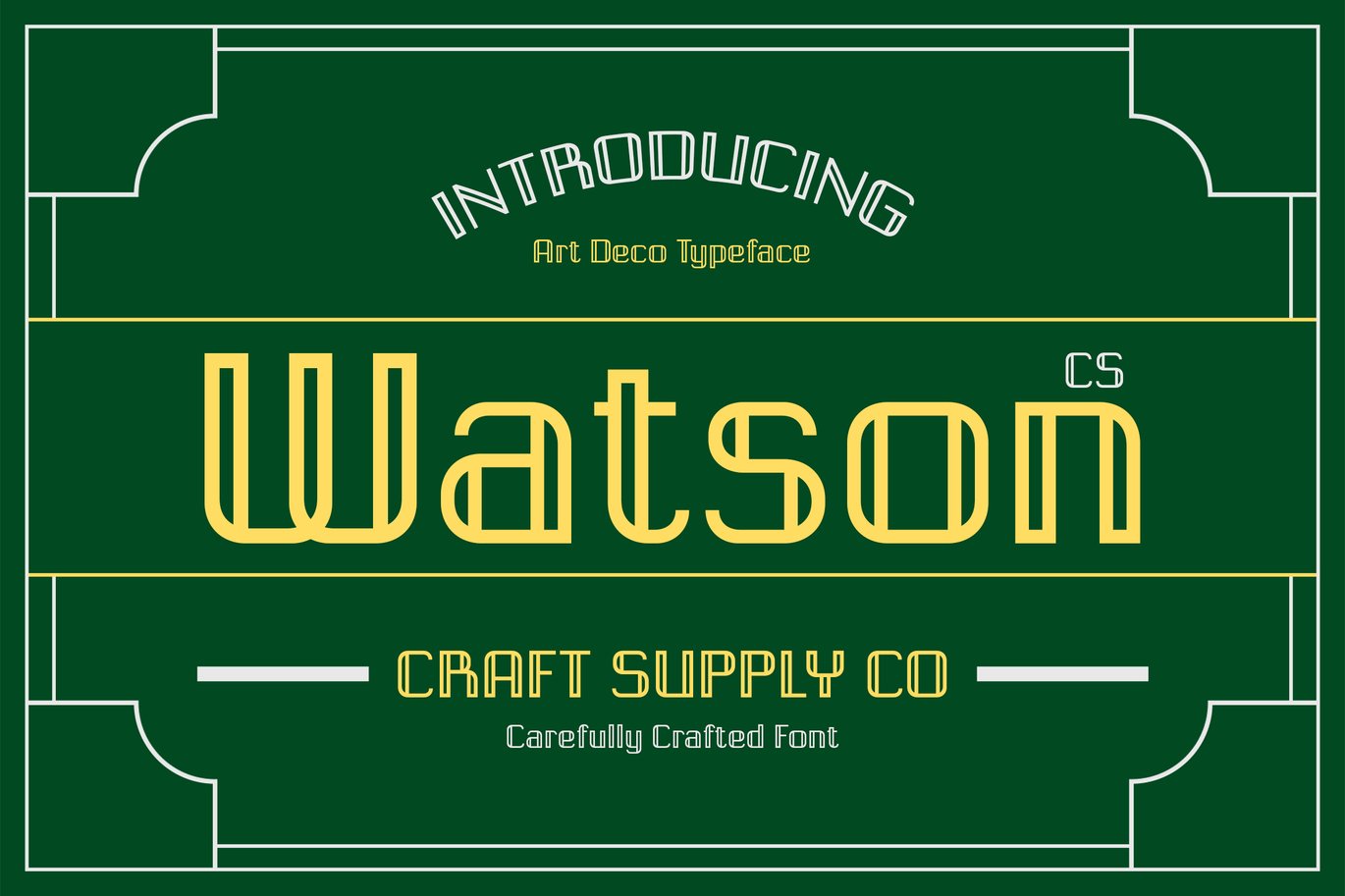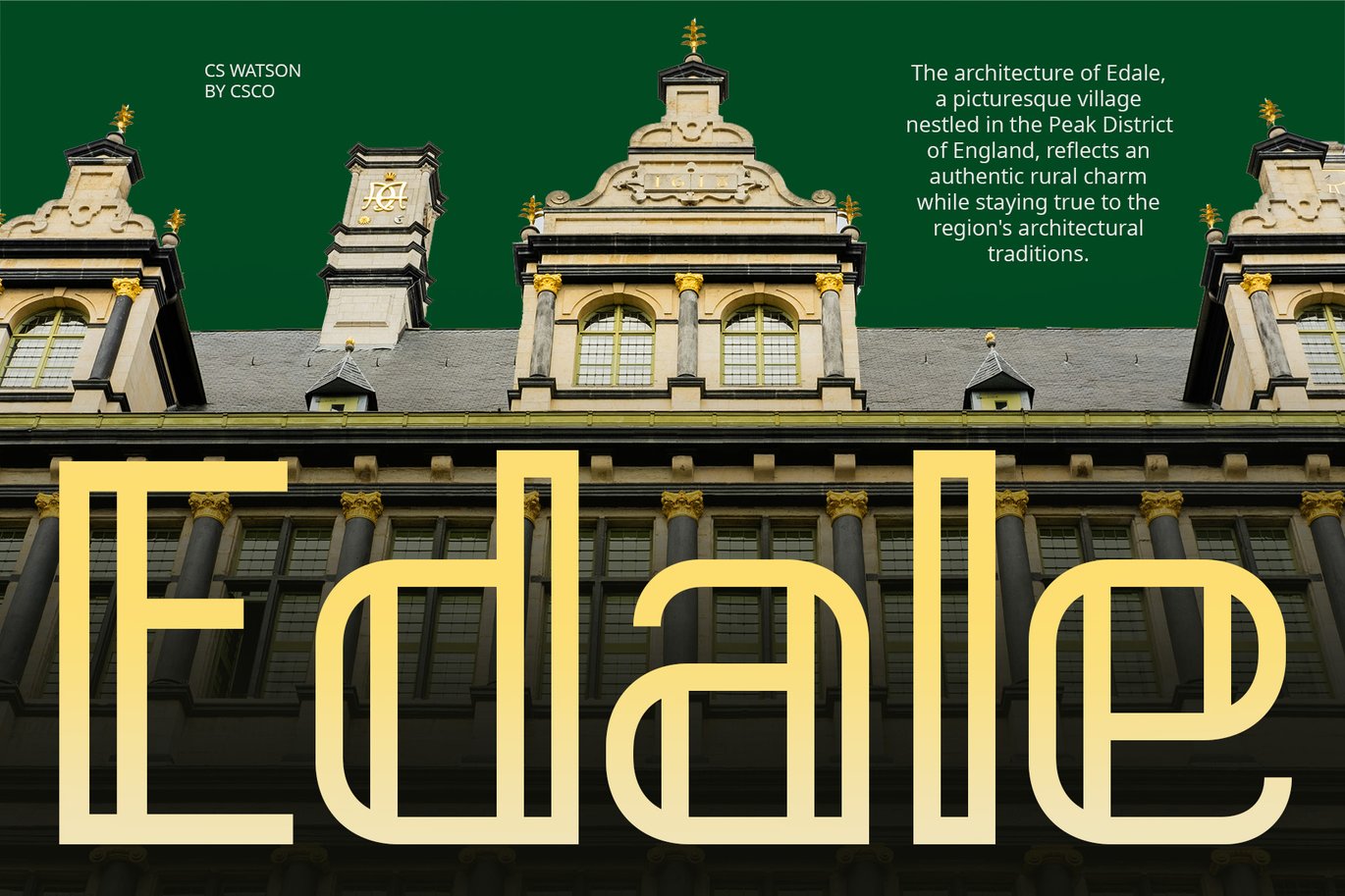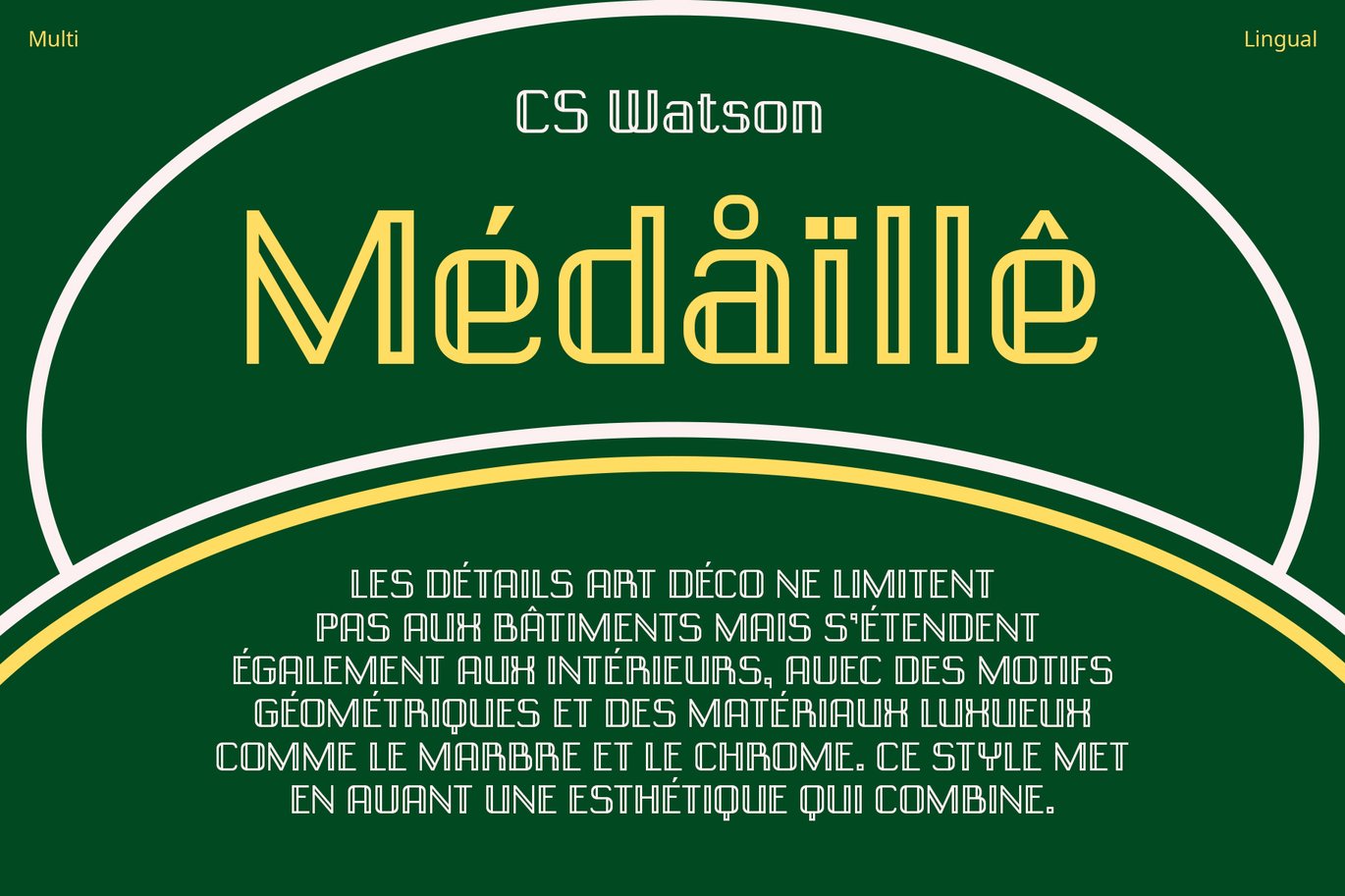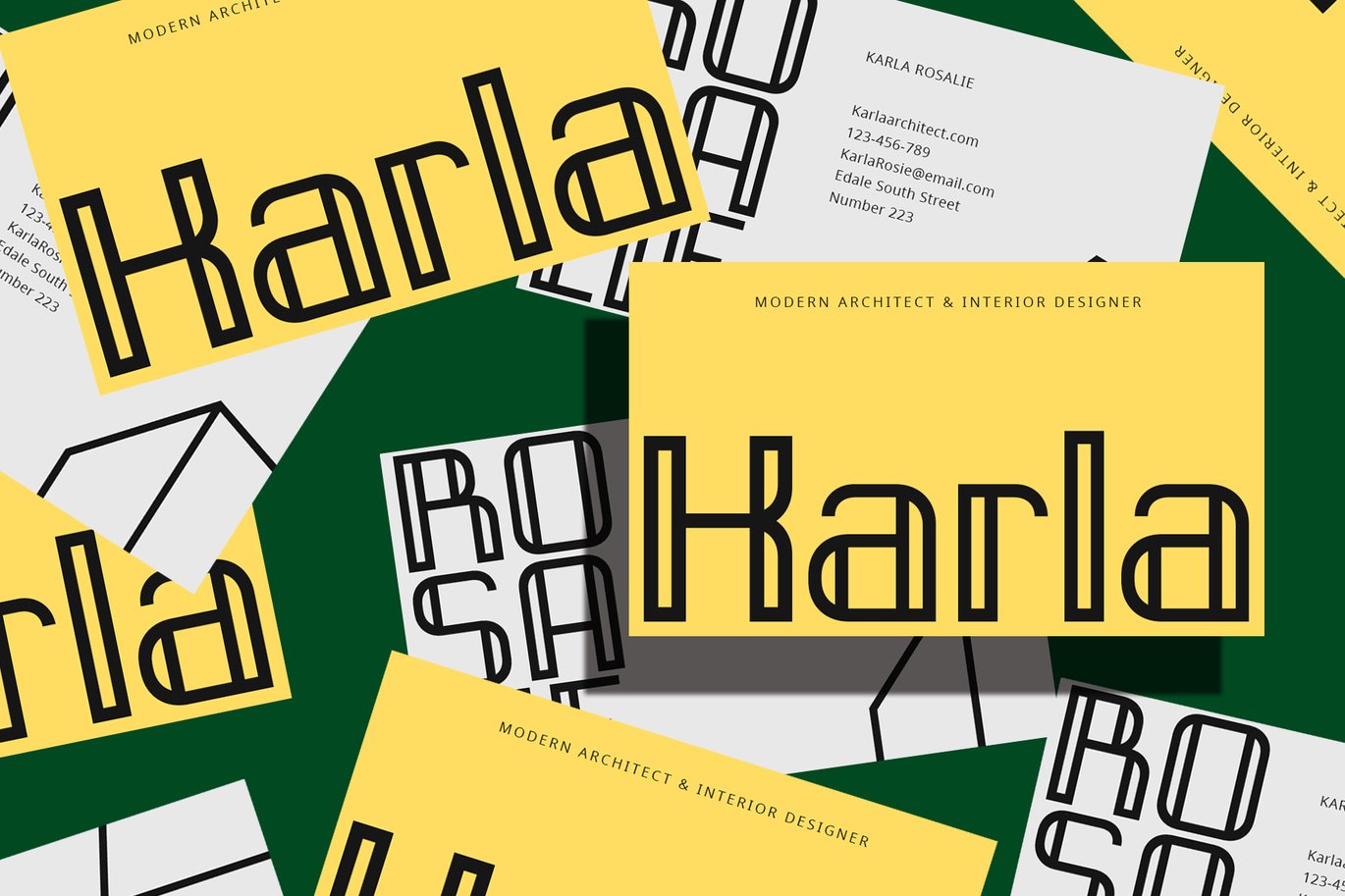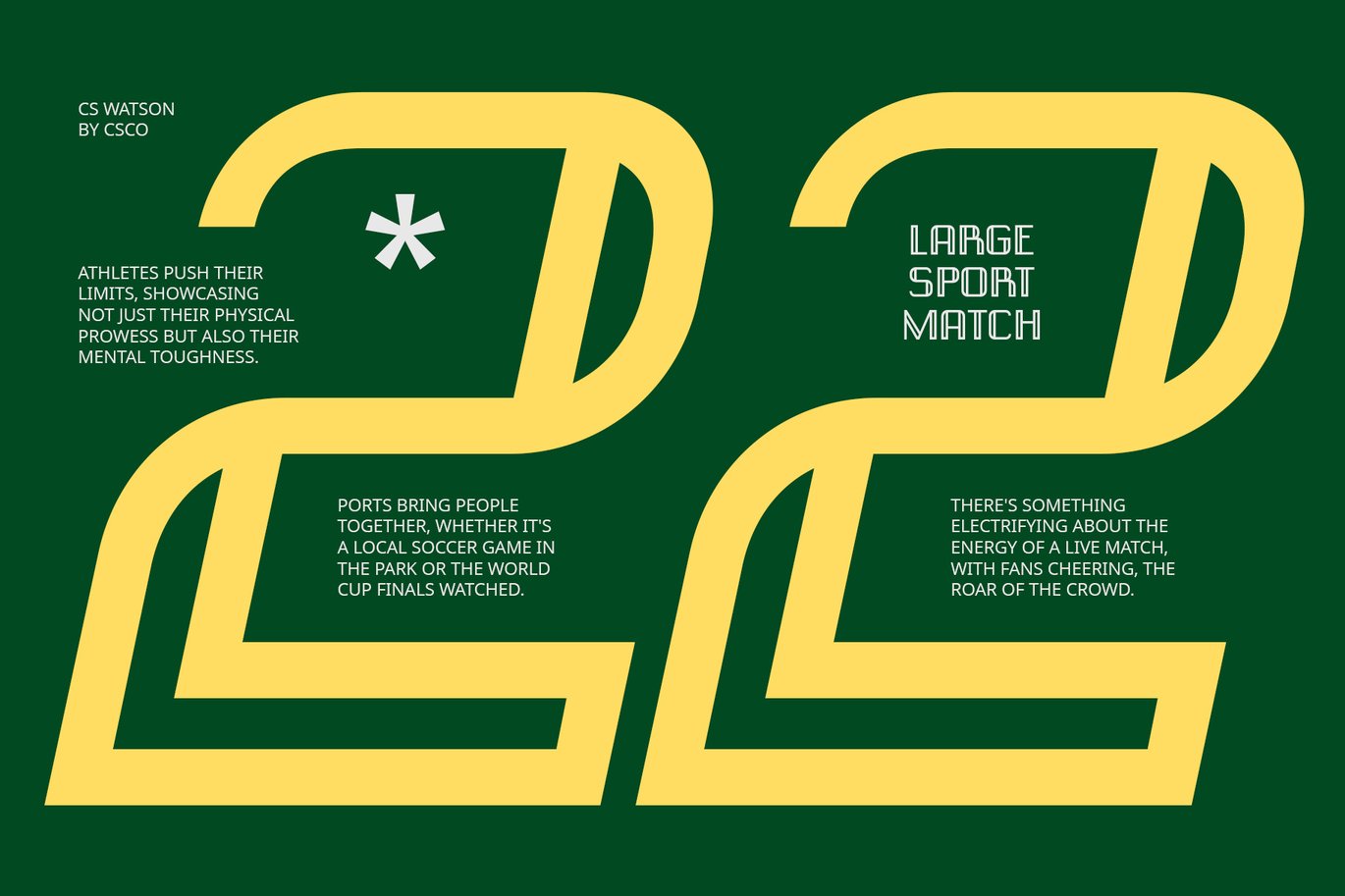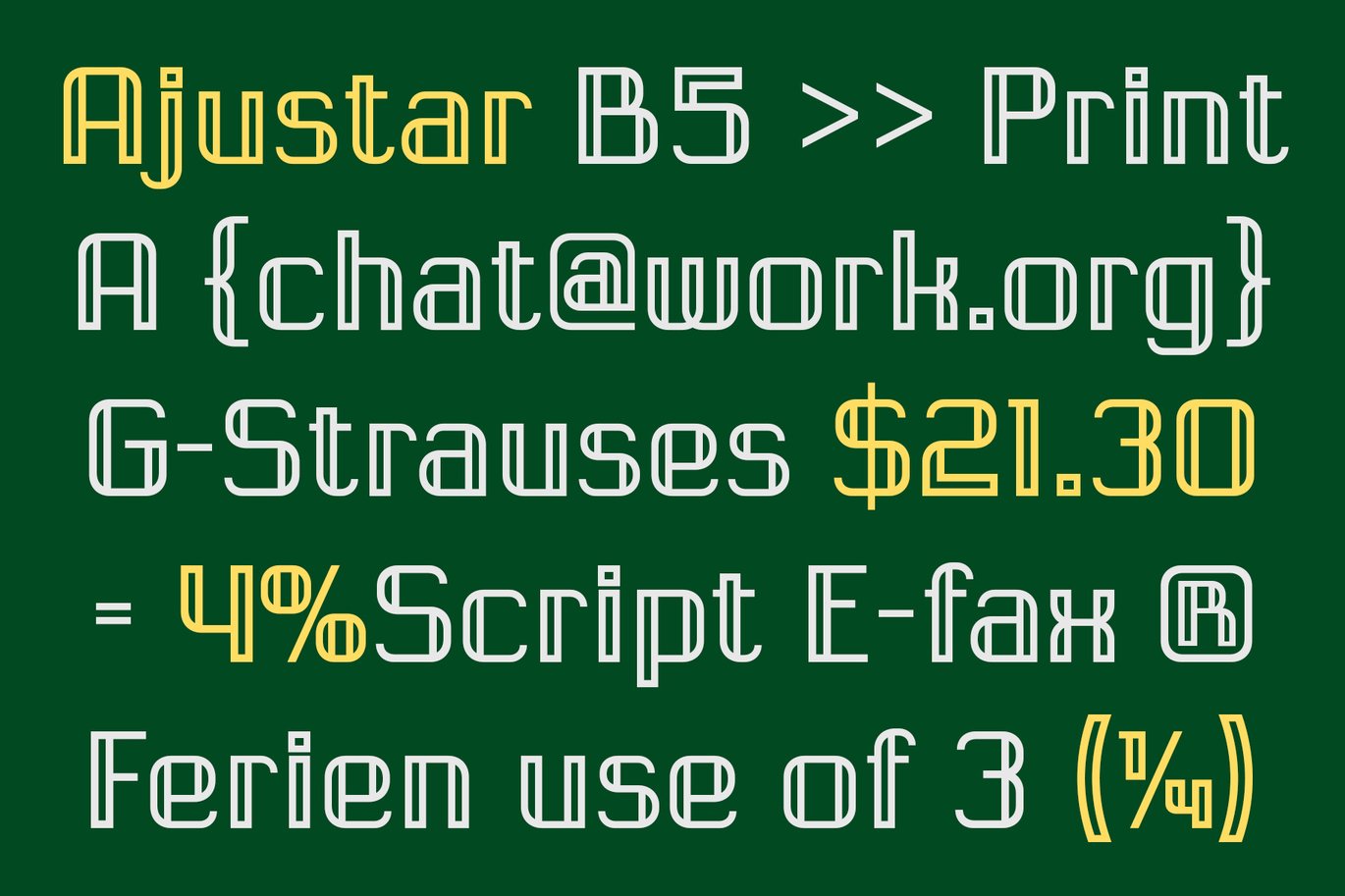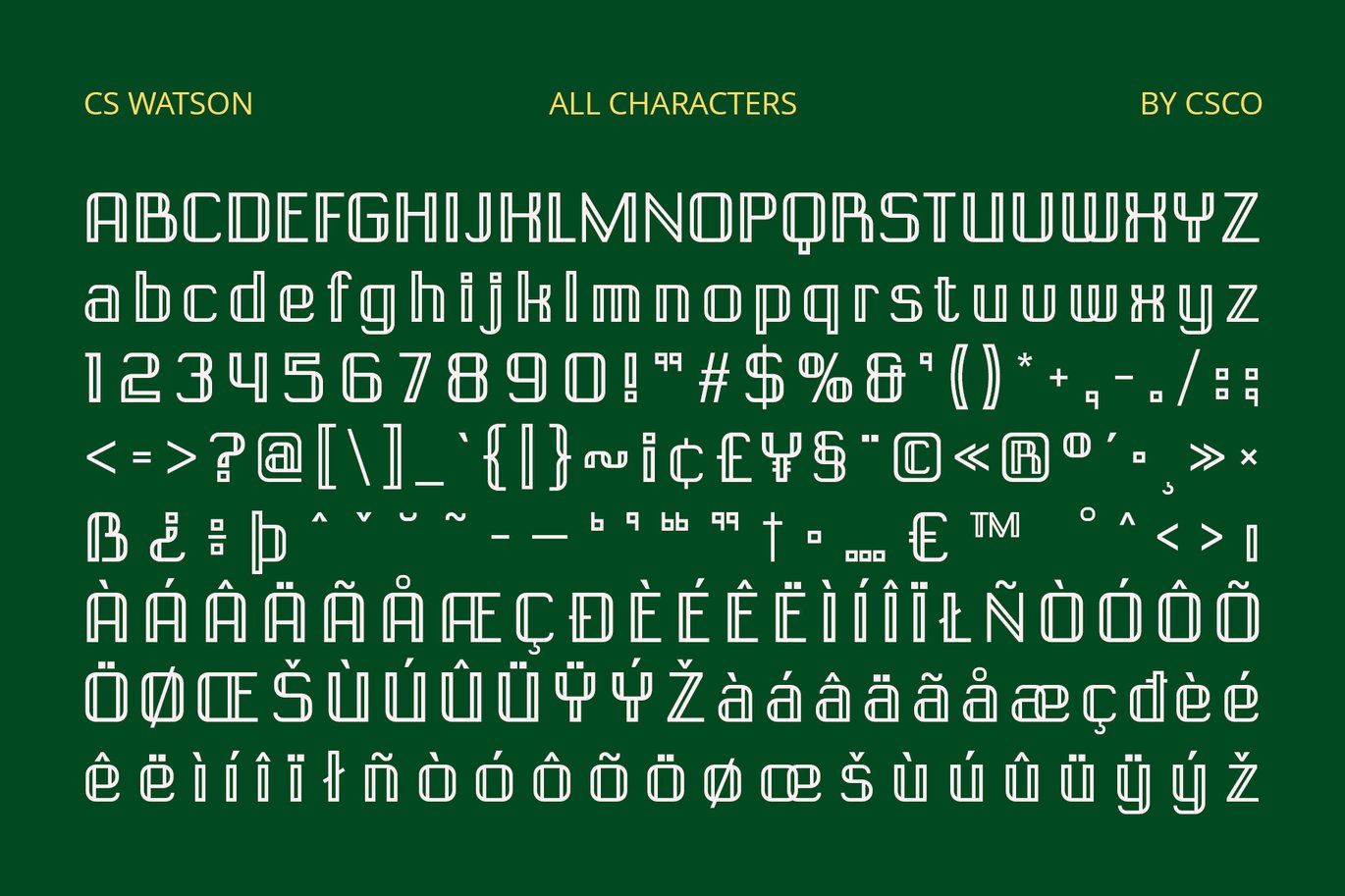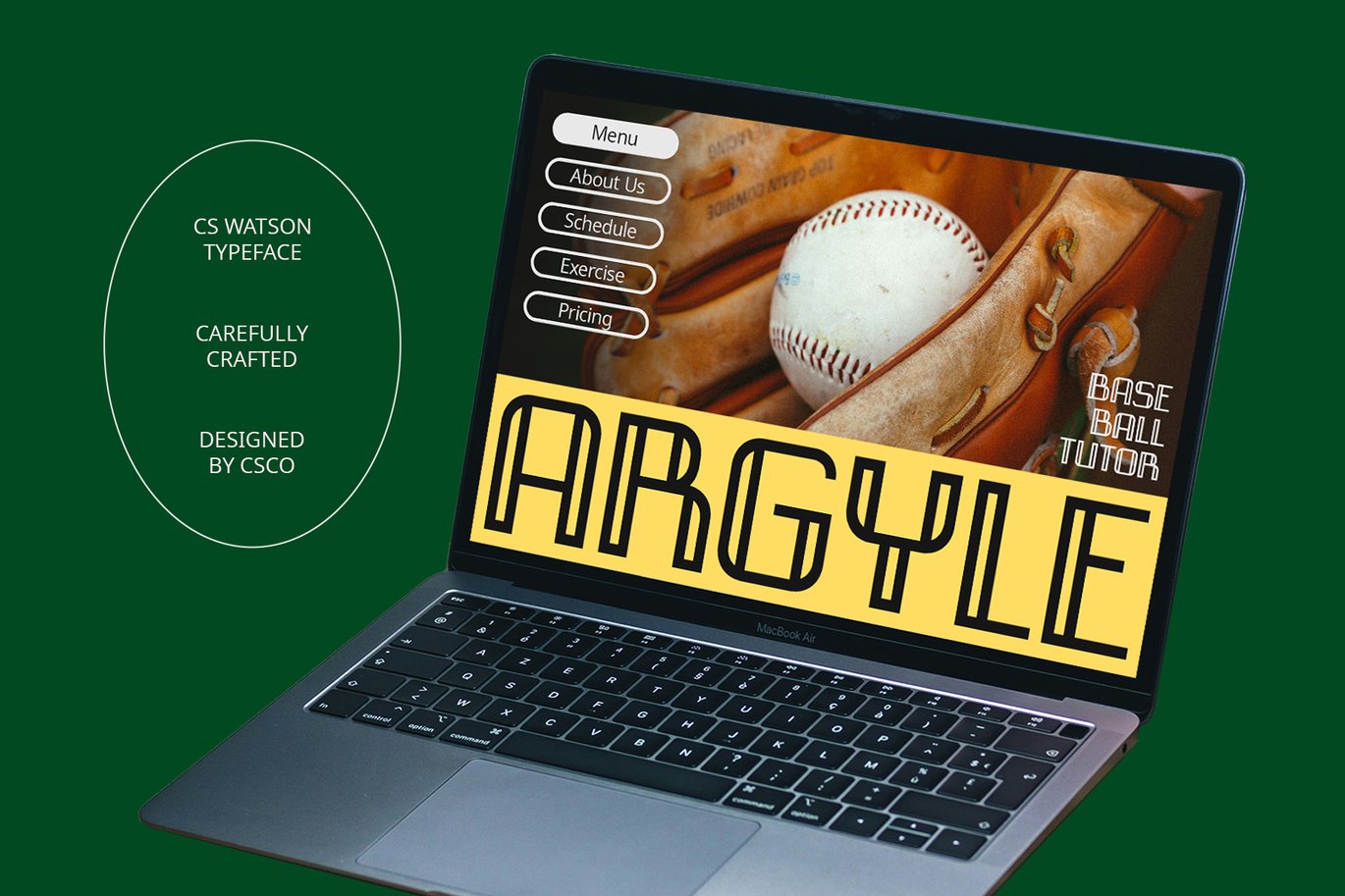
CS Watson – Art Deco Font
CS Watson – Art Deco Font: Elegance Meets Glamour in Geometric Precision
Elegant Art Deco Inspiration
CS Watson is a striking sans-serif font that perfectly captures the essence of Art Deco elegance. Its geometric design features clean lines and bold shapes that blend vintage charm with modern sophistication, making it a versatile choice for a variety of high-end projects.
Glamour and Luxury with a Modern Twist
This font combines the glamour and opulence of the Art Deco era with a contemporary flair. The geometric forms and symmetrical design elements evoke a sense of classic luxury while maintaining a fresh, modern appeal. CS Watson’s style reflects the luxurious and stylish aesthetic of the 1920s and 1930s, making it ideal for projects that aim to convey both timeless elegance and current trends.
Perfect for Stylish Visuals
Ideal for creating visually captivating materials such as branding, editorial layouts, and promotional designs, CS Watson adds a touch of sophistication and glamour to any project. Whether you’re designing high-end advertisements, elegant invitations, or chic business collateral, this font enhances your visuals with a distinctive and fashionable edge.